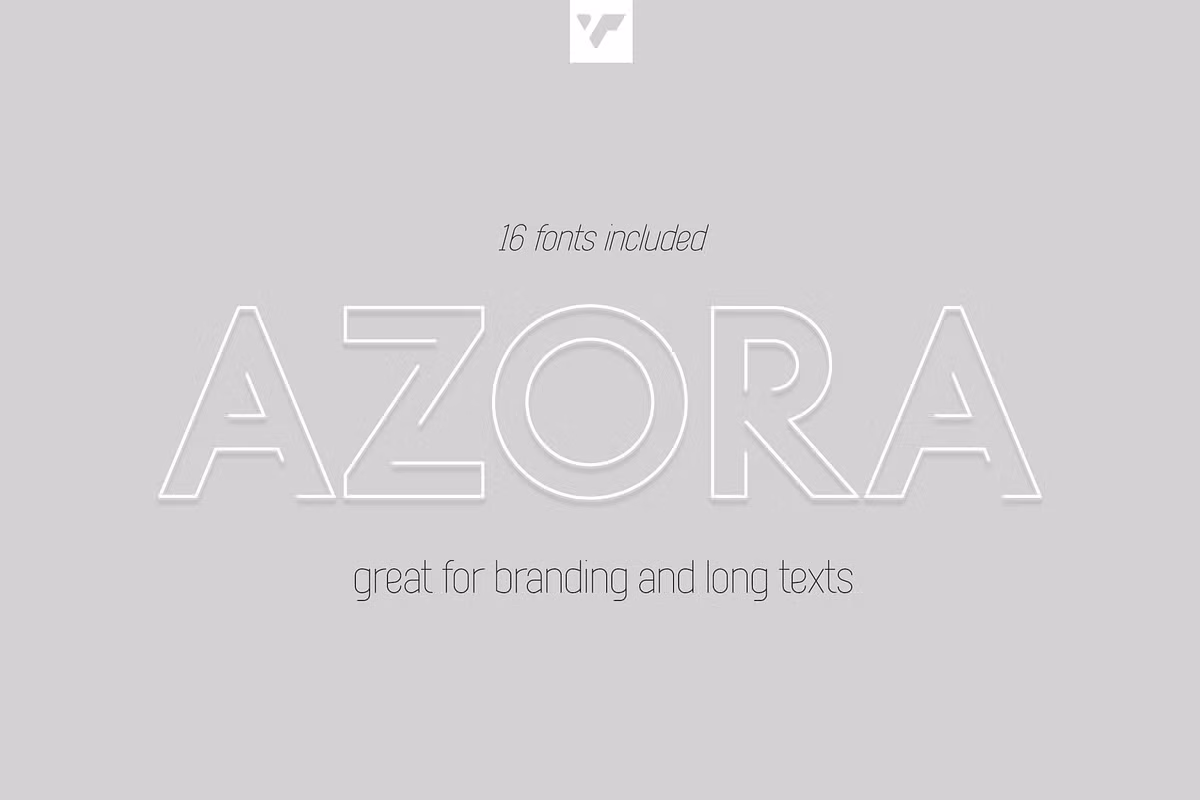
Azora Typeface for Branding and Text Free Download is a sophisticated and versatile typeface designed for both professional branding and high-quality text design. With its clean, modern letterforms and balanced proportions, Azora is perfect for logos, product packaging, editorial layouts, web design, and any project that requires both elegance and readability.
This font combines the best of contemporary design with timeless appeal, making it an excellent choice for businesses looking to create a strong, memorable brand identity. Whether you're working on a luxury brand, a professional portfolio, or an editorial publication, Azora brings refinement and clarity to your typography.